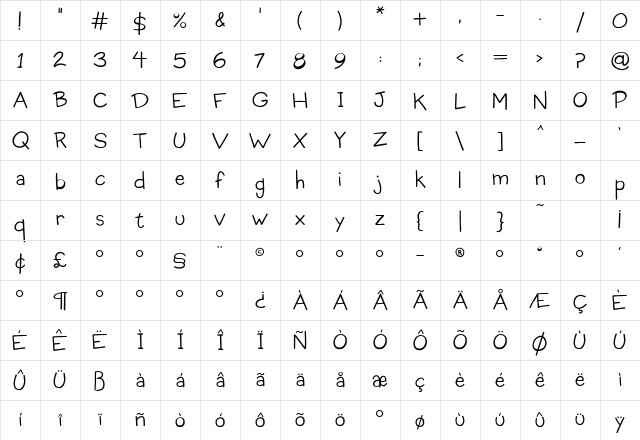
CoopForged is a composed and adaptable typeface that performs quietly and consistently across a wide range of design contexts.
Pro Tip: Use CoopForged in both headline and body roles to test its range before committing to a single application.